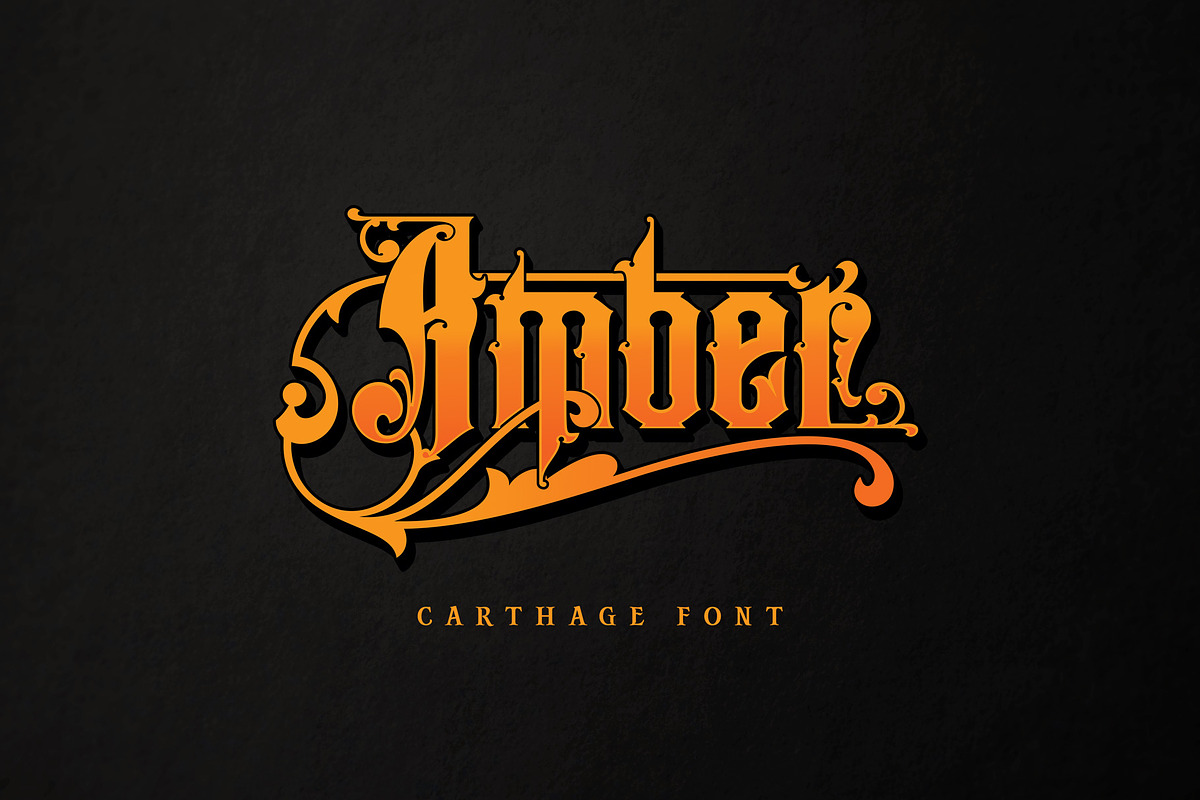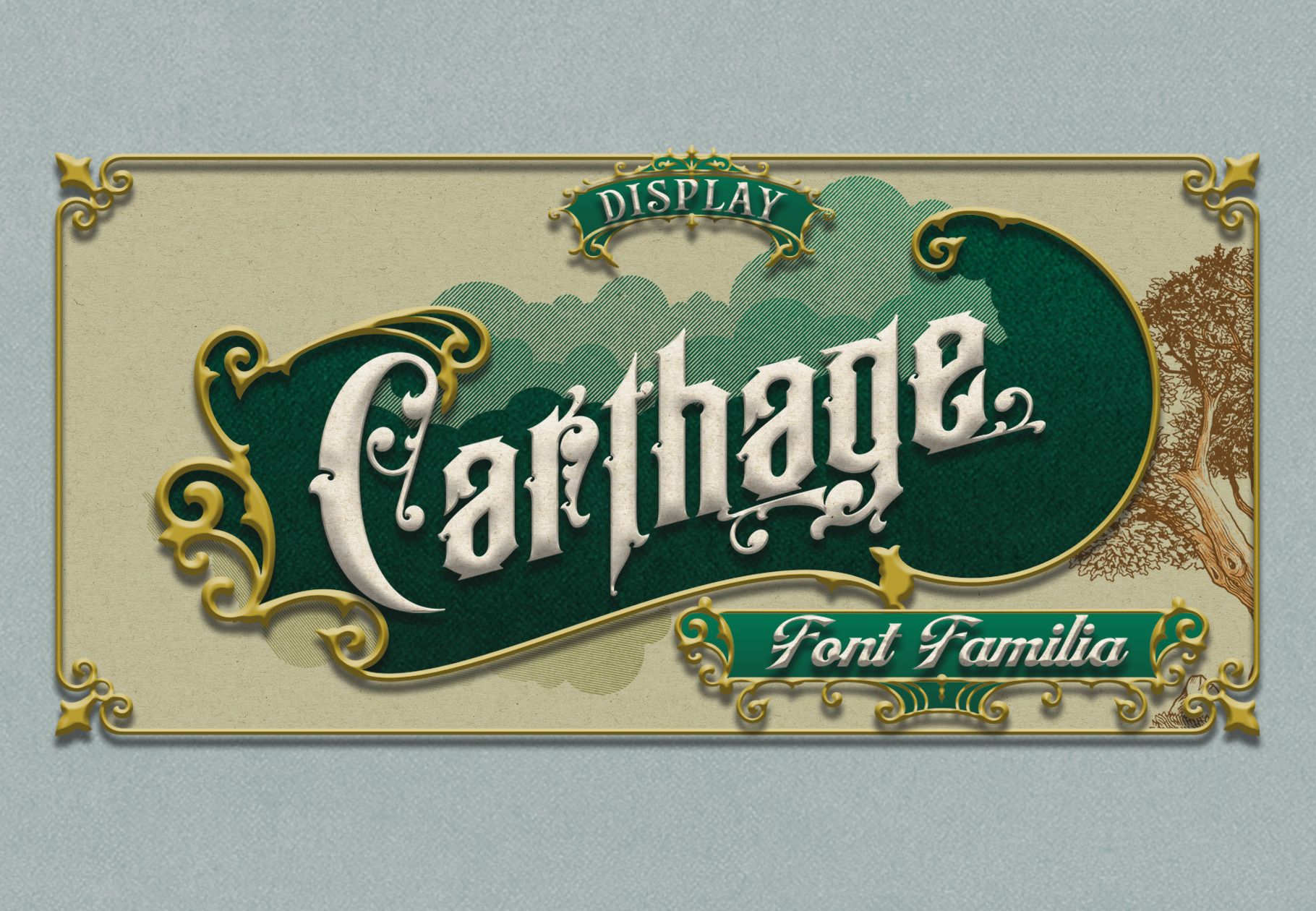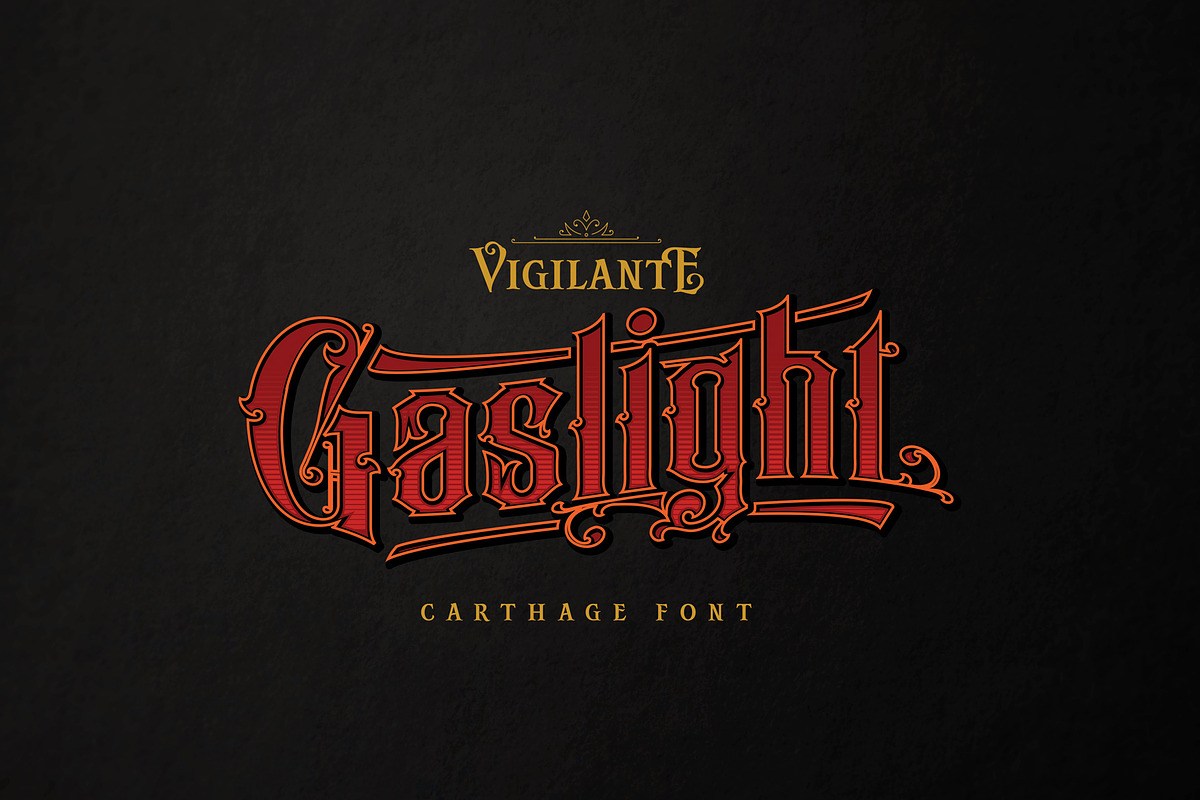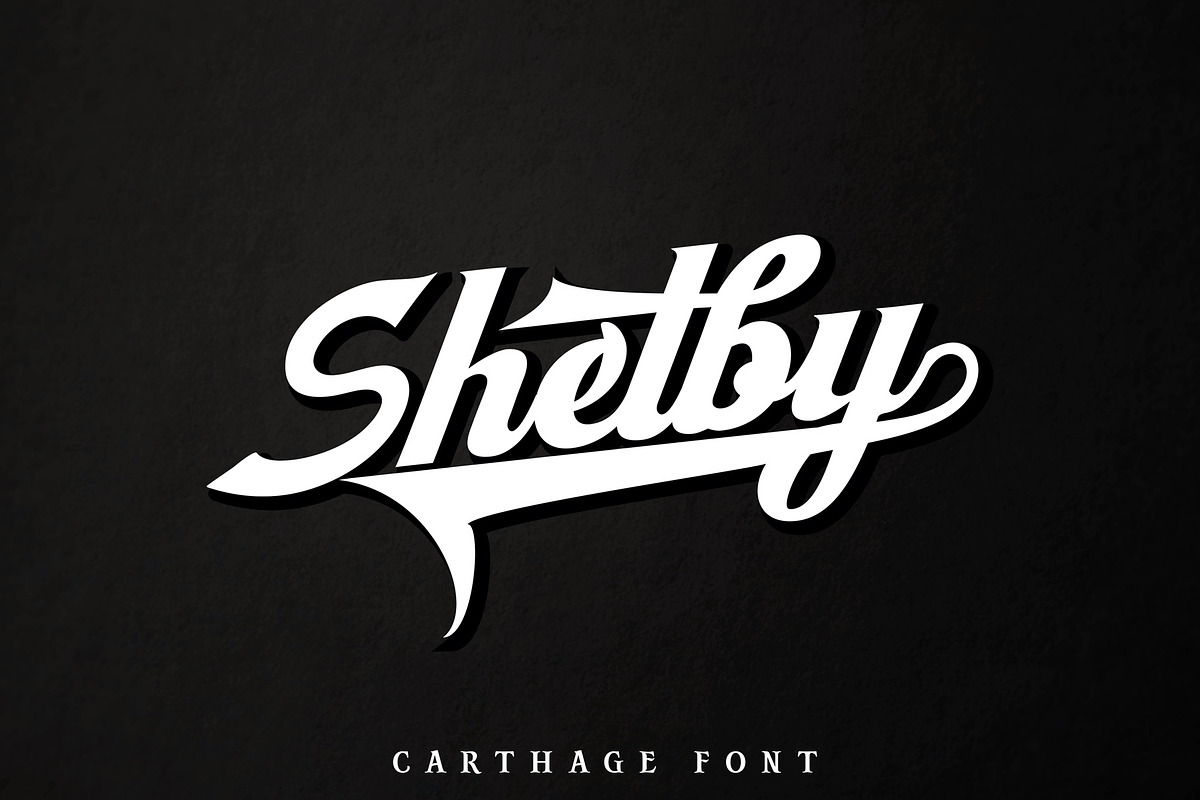
Carthage Font Family
Introducing A brand new Carthage font family display , roman and script vintage. this each font have opentype feature to access the selection of alternate letters, select the letters you like from the variety Thanks !!